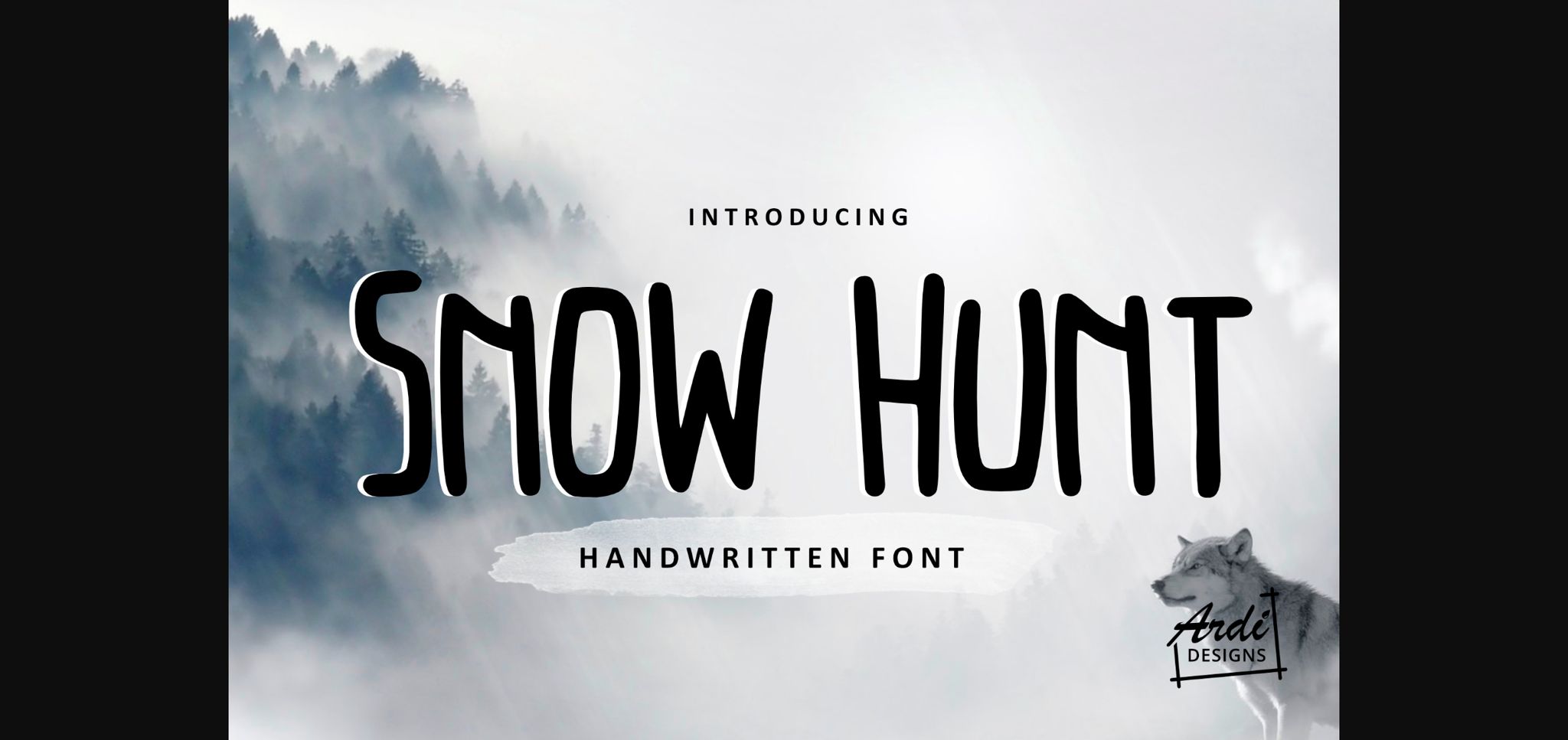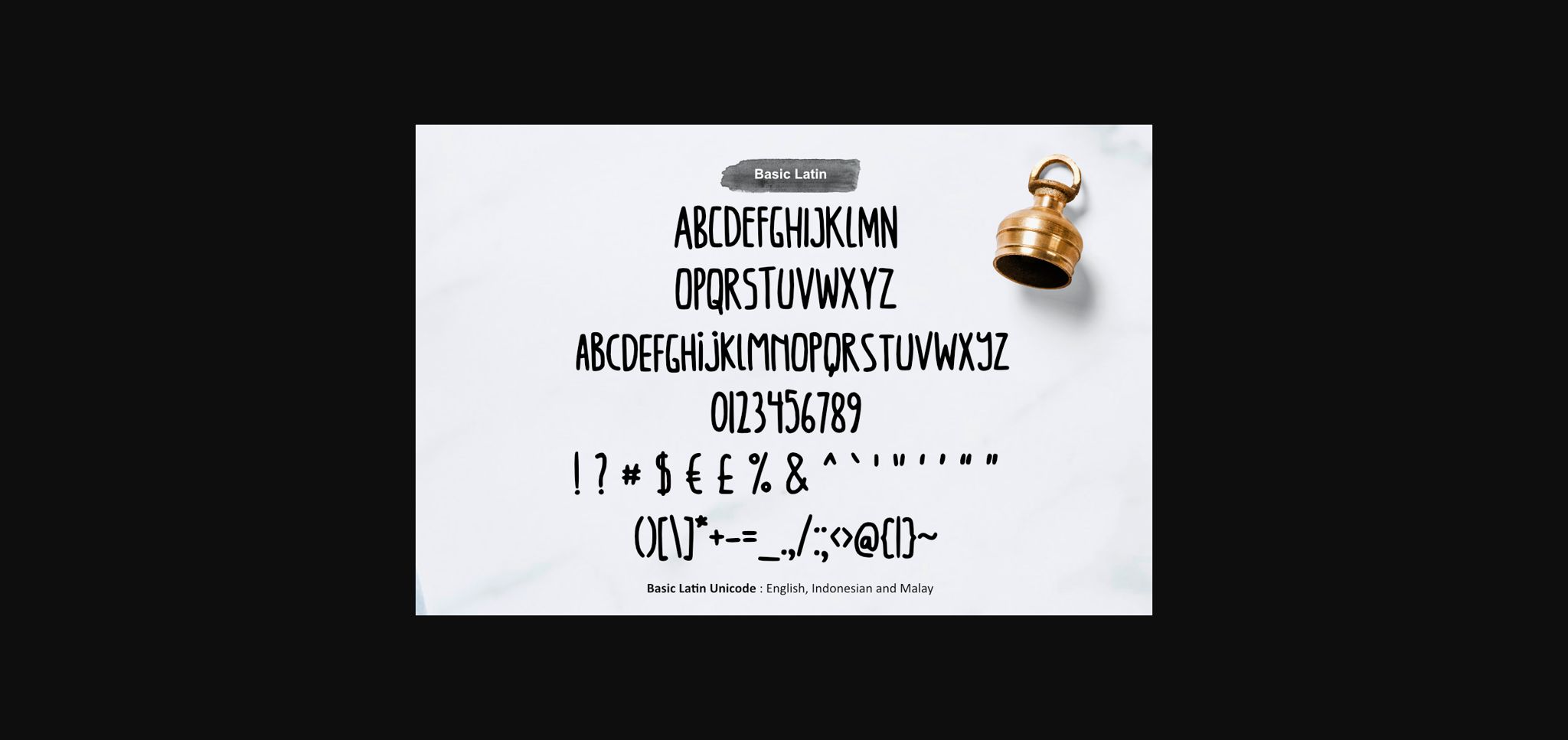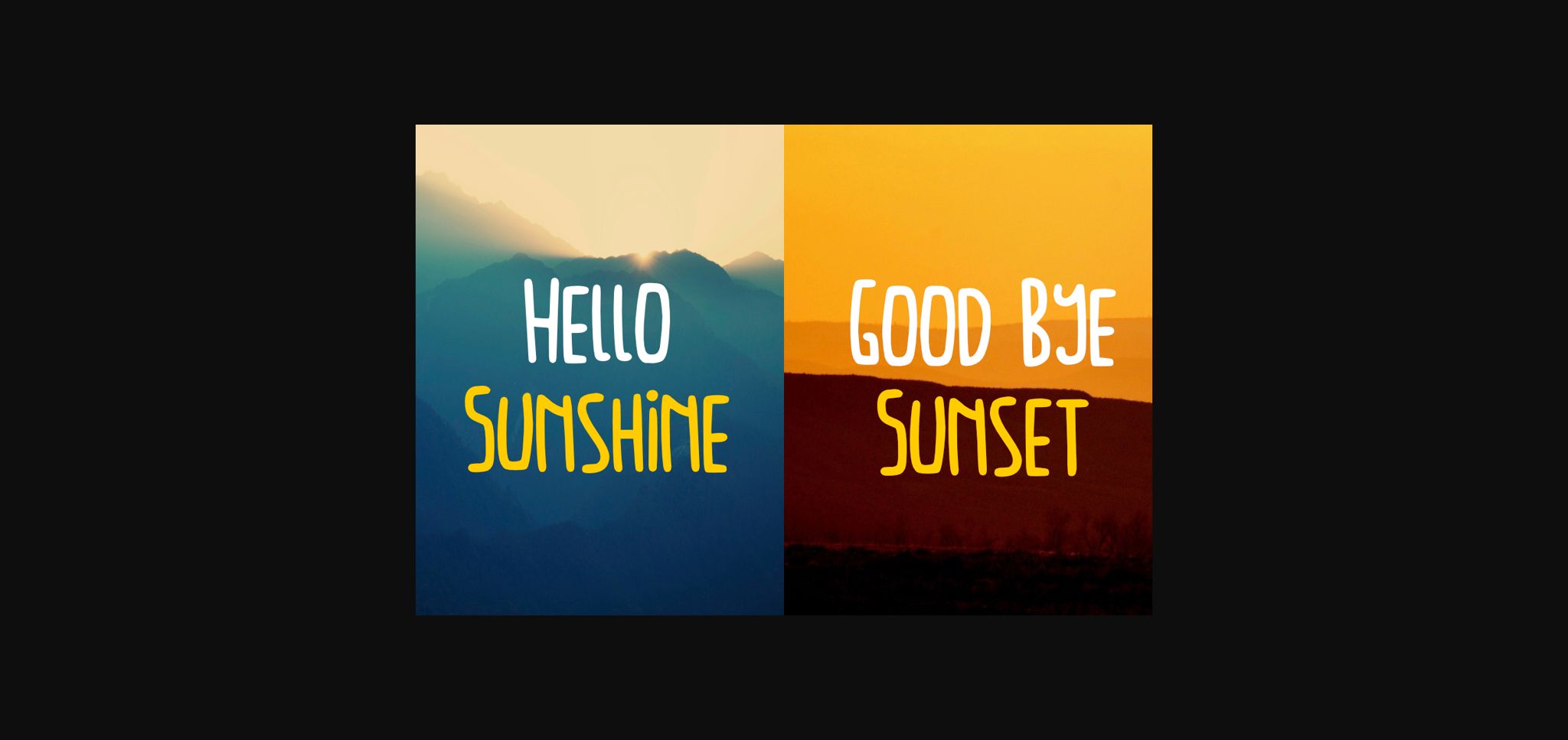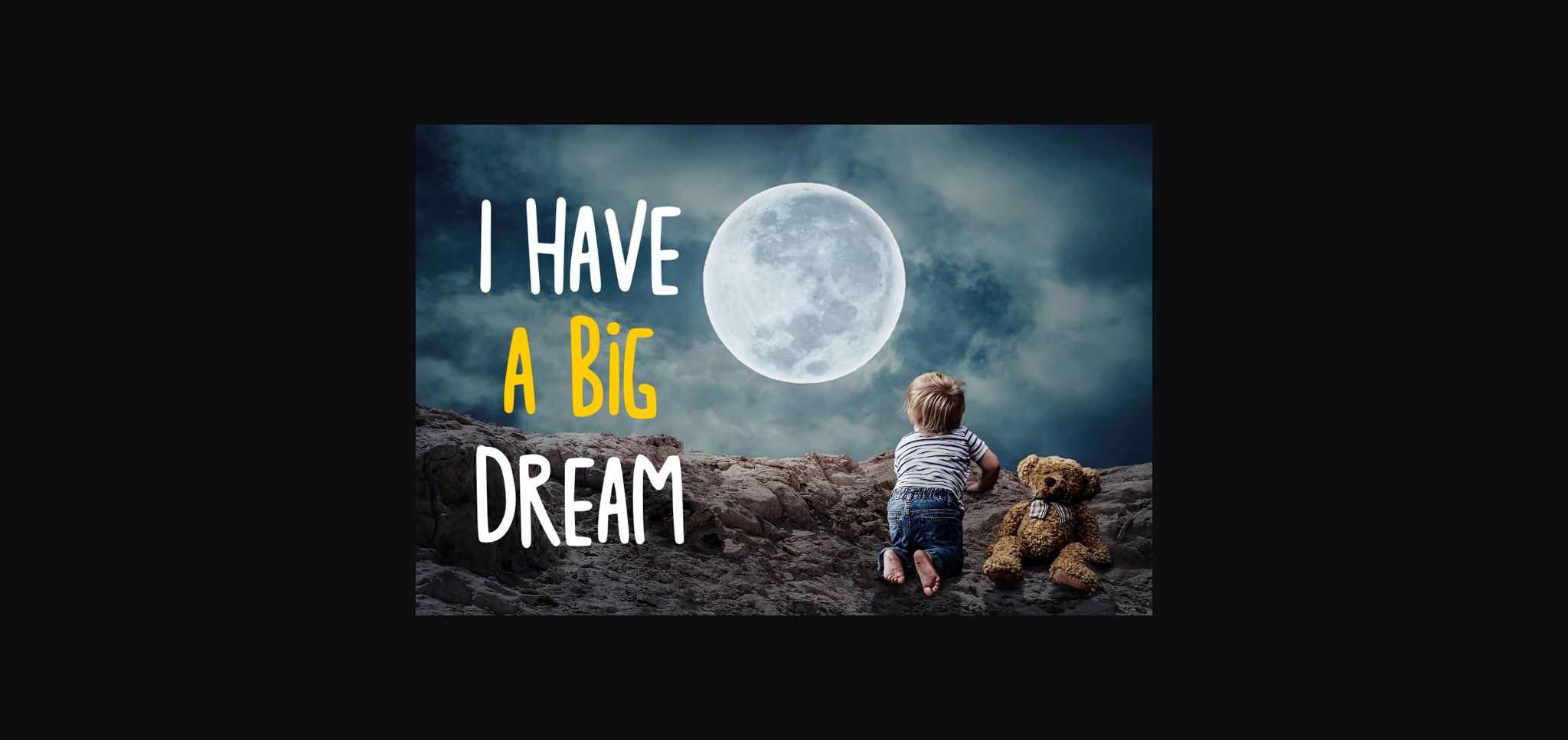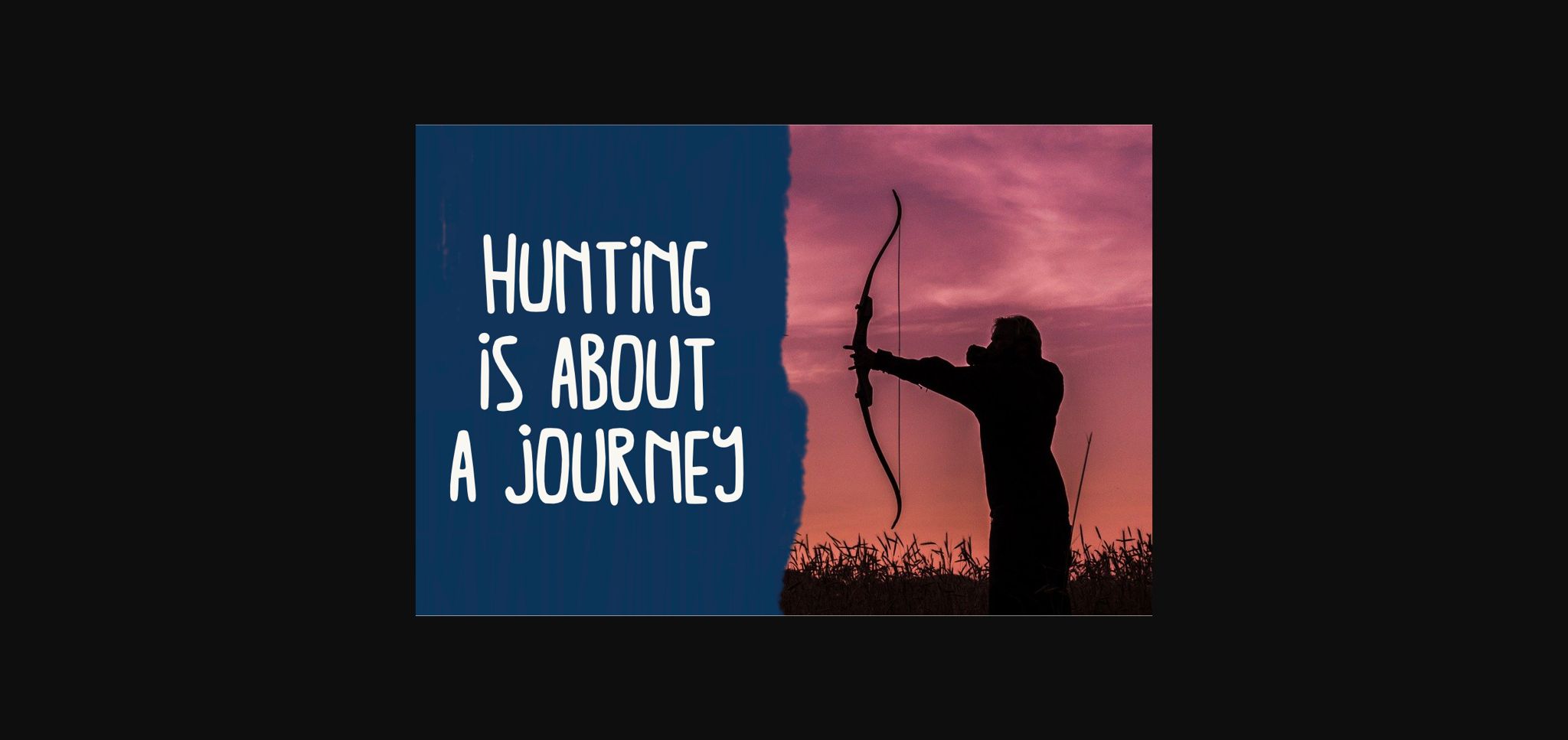
HomeSans Serif FontsSnow Hunt Font Sans Serif Fonts Snow Hunt Font FacebookXPinterestWhatsApp 1 of 7 ... Snow Hunt Font Poster 2... Snow Hunt Font Poster 3... Snow Hunt Font Poster 4... Snow Hunt Font Poster 5... Snow Hunt Font Poster 6... Snow Hunt Font Poster 7... About Snow Hunt Font Snow Hunt embodies fun, quirkiness and authenticity. This enchanting sans serif font will turn any creative idea into a true standout. Get creative with its unique playfulness, and use it to brighten up any crafting project! DOWNLOAD NOW People also explored Delfoo Font Finder Font Billy Font Bugisnia Script Font Latest Eclipse Font Cinderela Pink Fight Font Love Kimie Font Gabyan Font 350 0 TagsSnow Hunt Font Previous articleTisoledat FontNext articleGabutburit Font LEAVE A REPLY Cancel reply Comment: Please enter your comment! Name:* Please enter your name here Email:* You have entered an incorrect email address! Please enter your email address here Website: Save my name, email, and website in this browser for the next time I comment. Personal Use Free Over the Top Personal Use Free Read more about this font Bamboomoe Personal Use Free Read more about this font Frozdotre Personal Use Free Read more about this font Hysteria Santa Personal Use Free Read more about this font BLOG How to Install and Use Fonts on Windows, macOS, and Web Projects How to Install and Use Fonts on Windows, macOS, and Web Projects Fonts are a crucial part of design and branding. Whether you’re designing a... How to Cut Any Font on Cricut: Convert a Font to SVG (Free) Modern Sans-Serif Fonts That Brands Love in 2025 Top 7 Google Fonts Alternatives for Faster and Privacy-Friendly Web Design (2025)